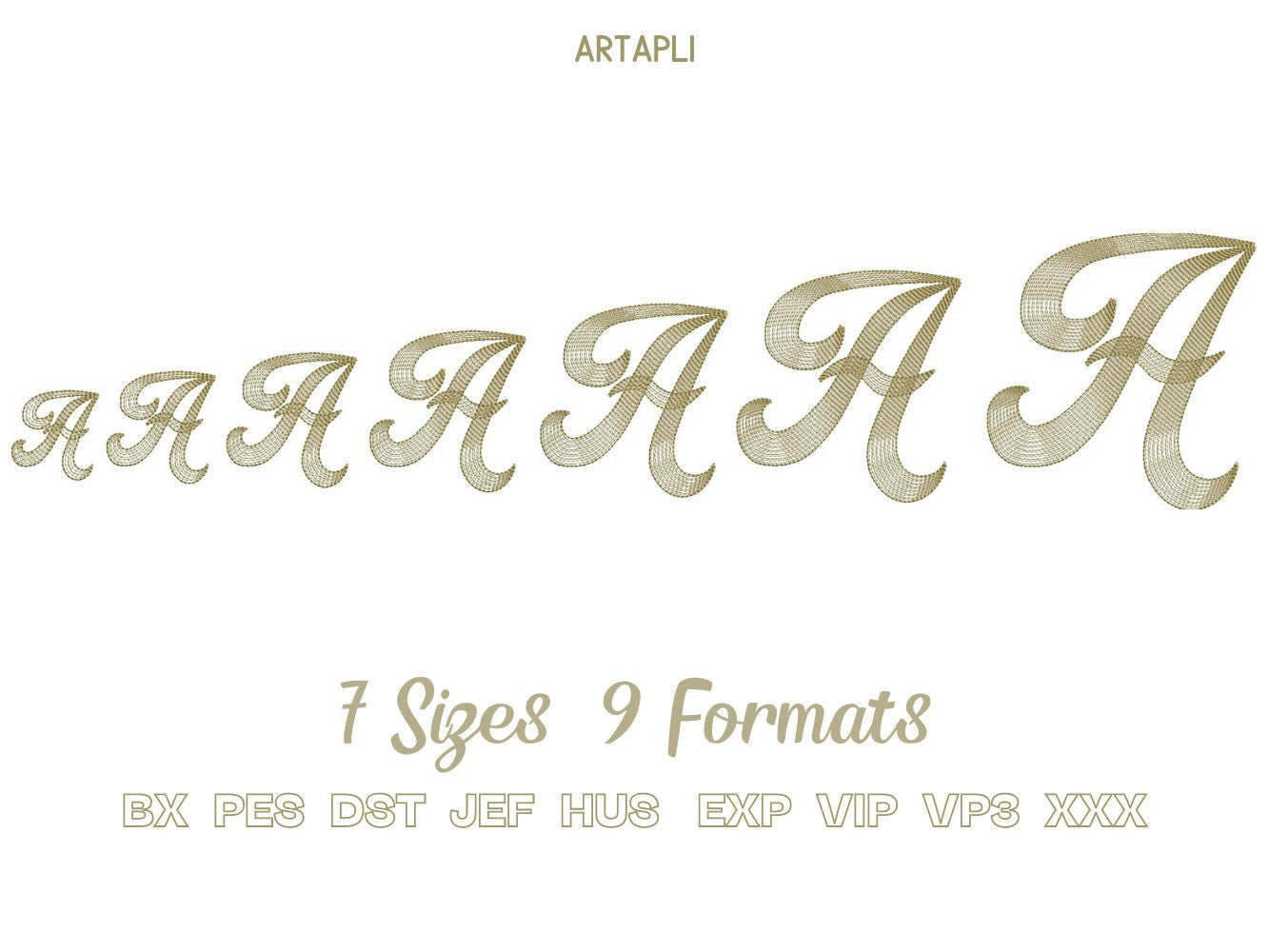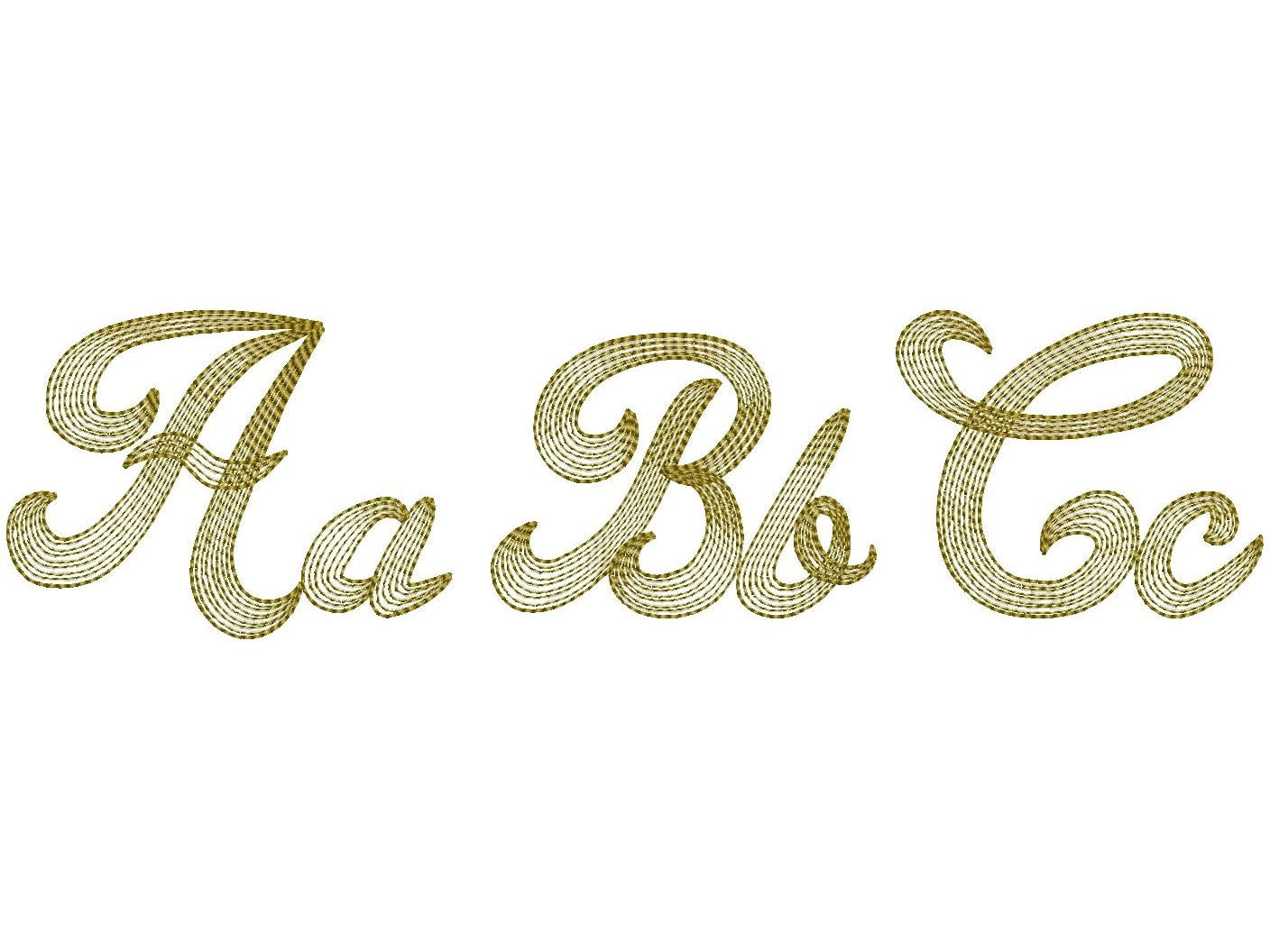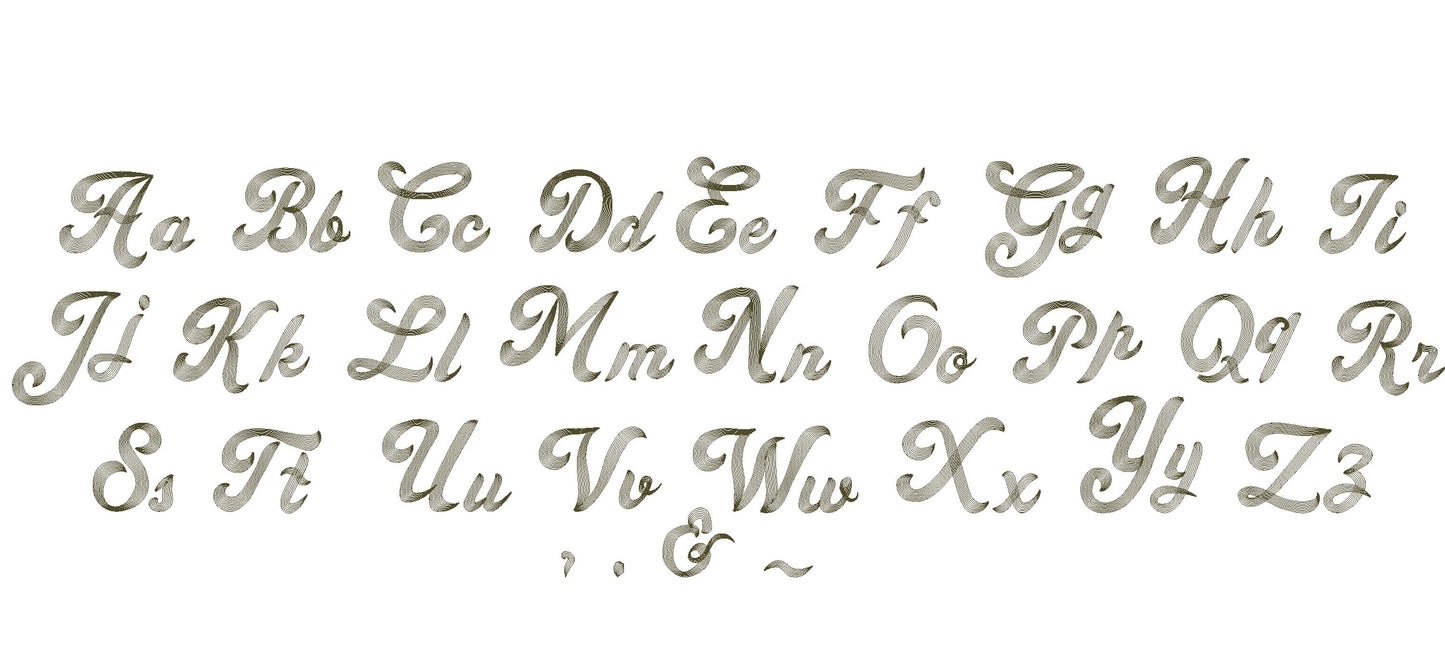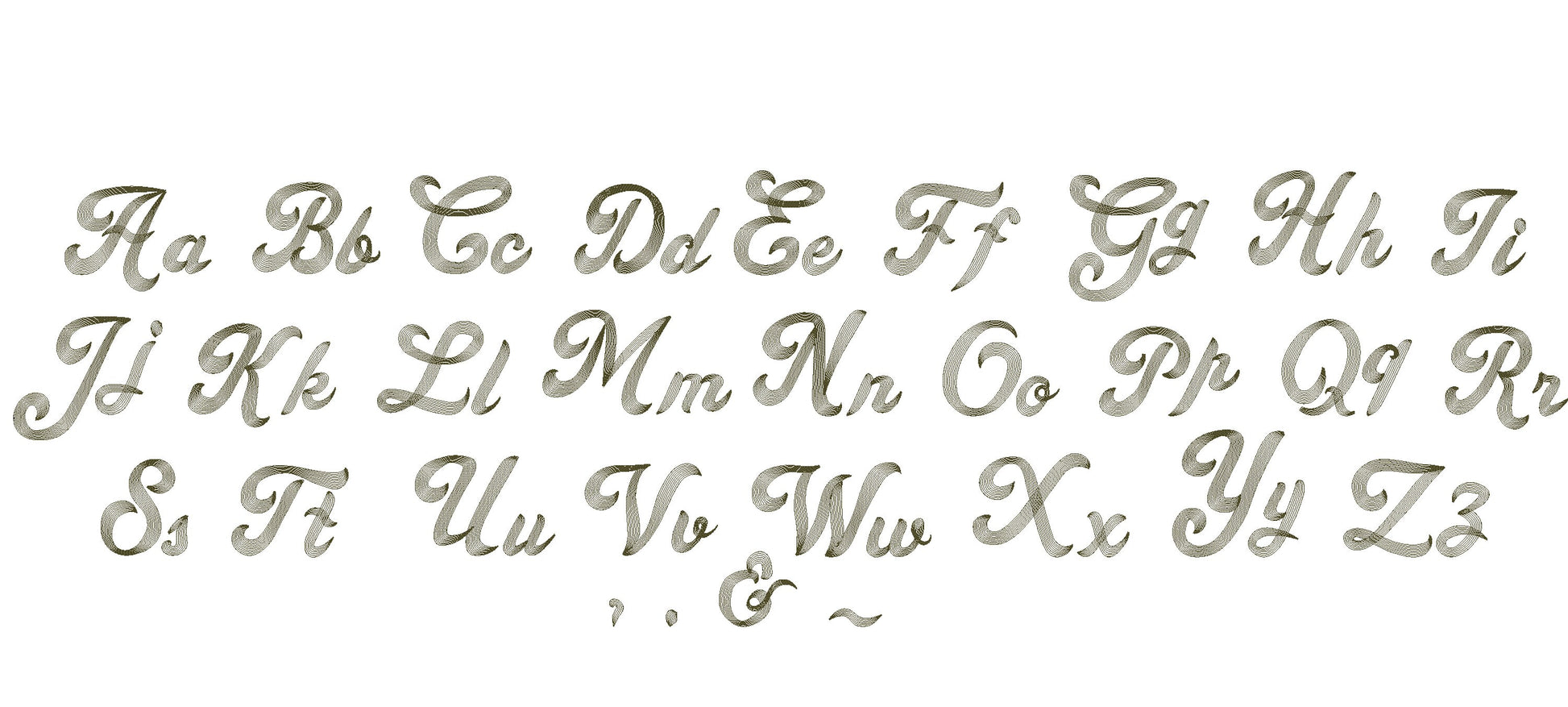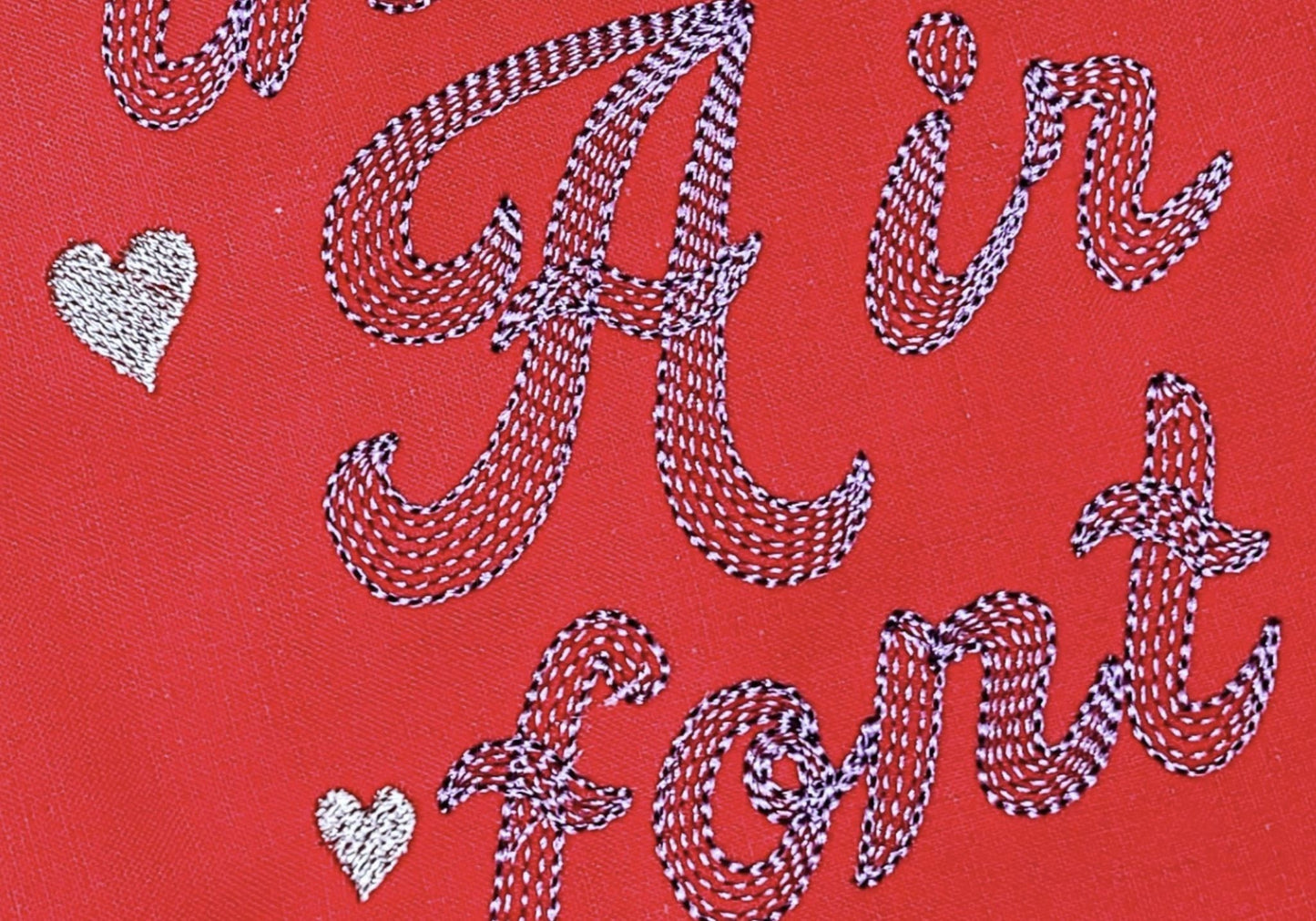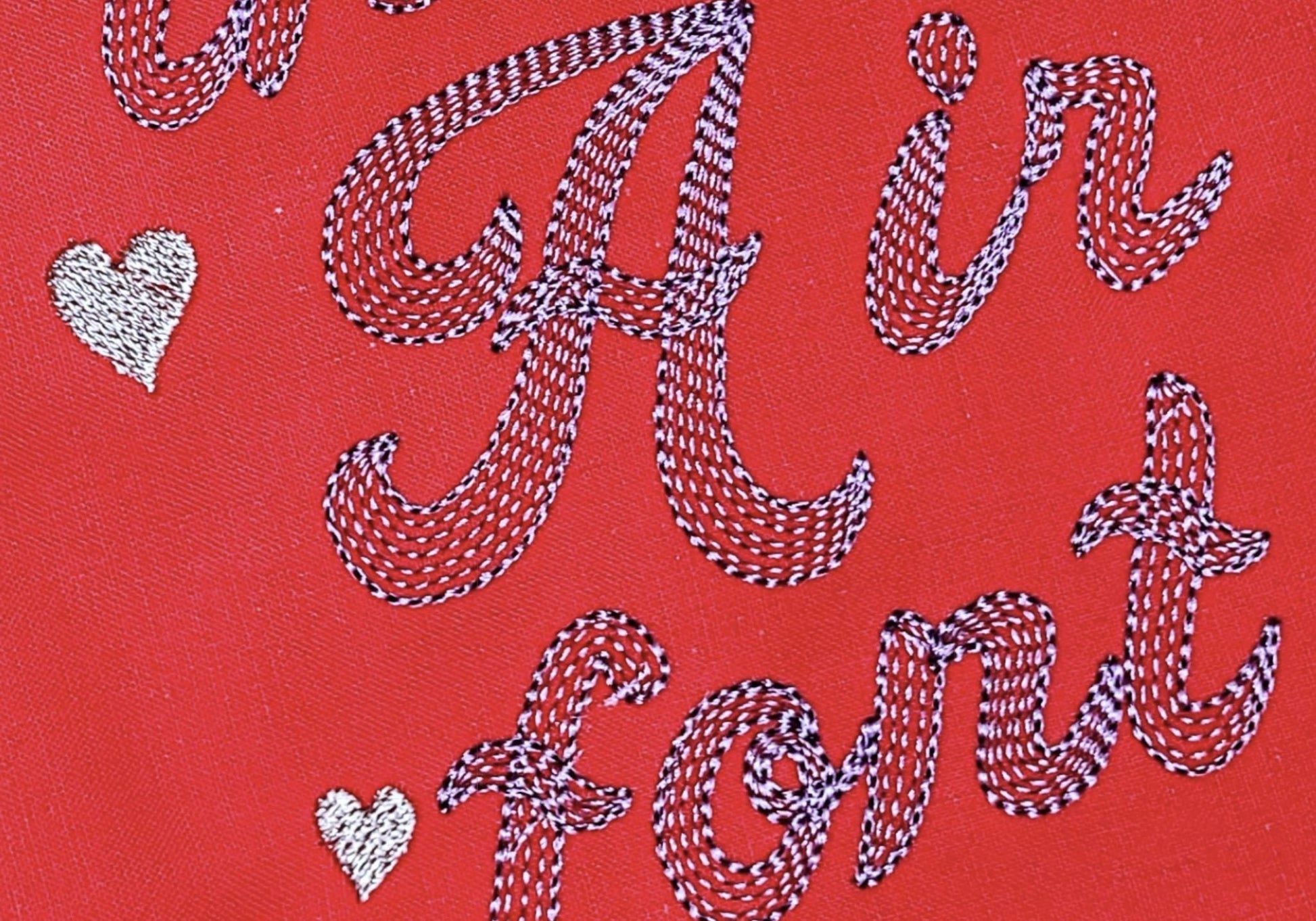
Quick Light Stitch Line Shadow Font
Uppercase and lowercase letters, plus &, comma, dash and period. Seven sizes: 1.7, 2, 2.5, 3, 3.5, 4 and 5 inches.
- Light stitch line shadow font
- Uppercase, lowercase, punctuation
- 7 sizes, 1.7 to 5 in